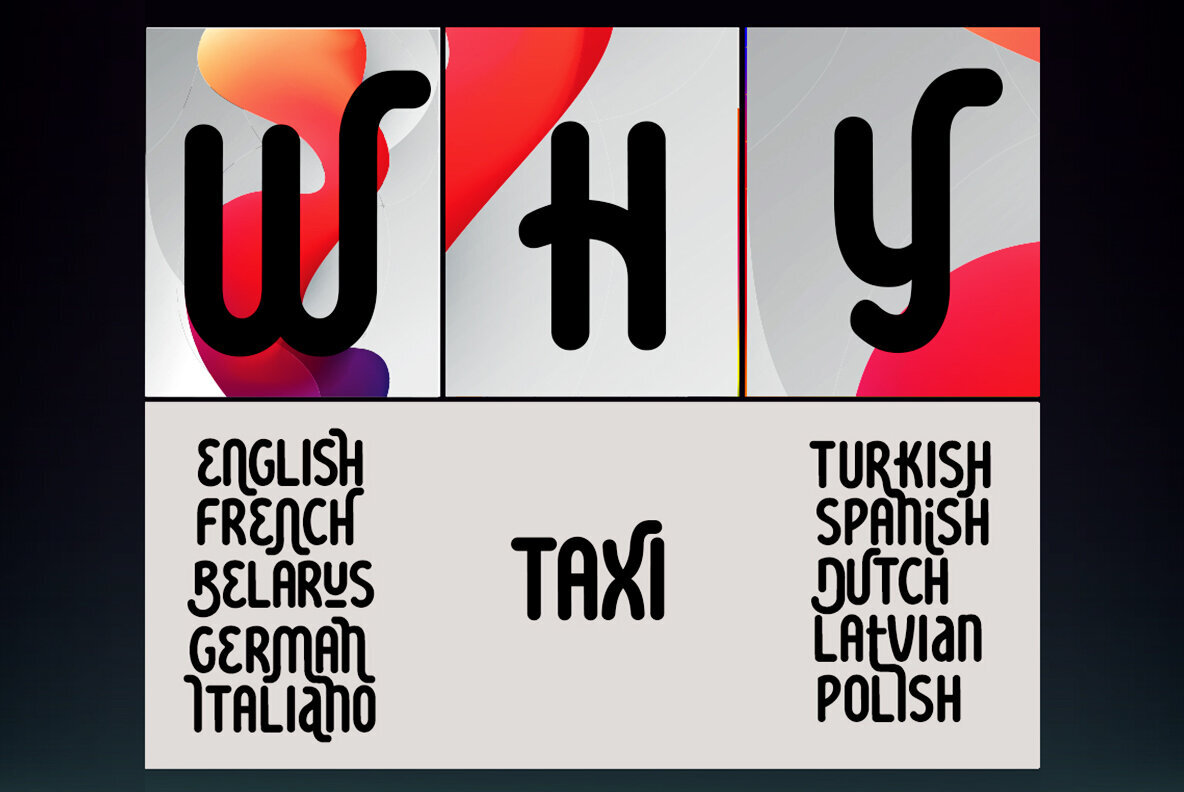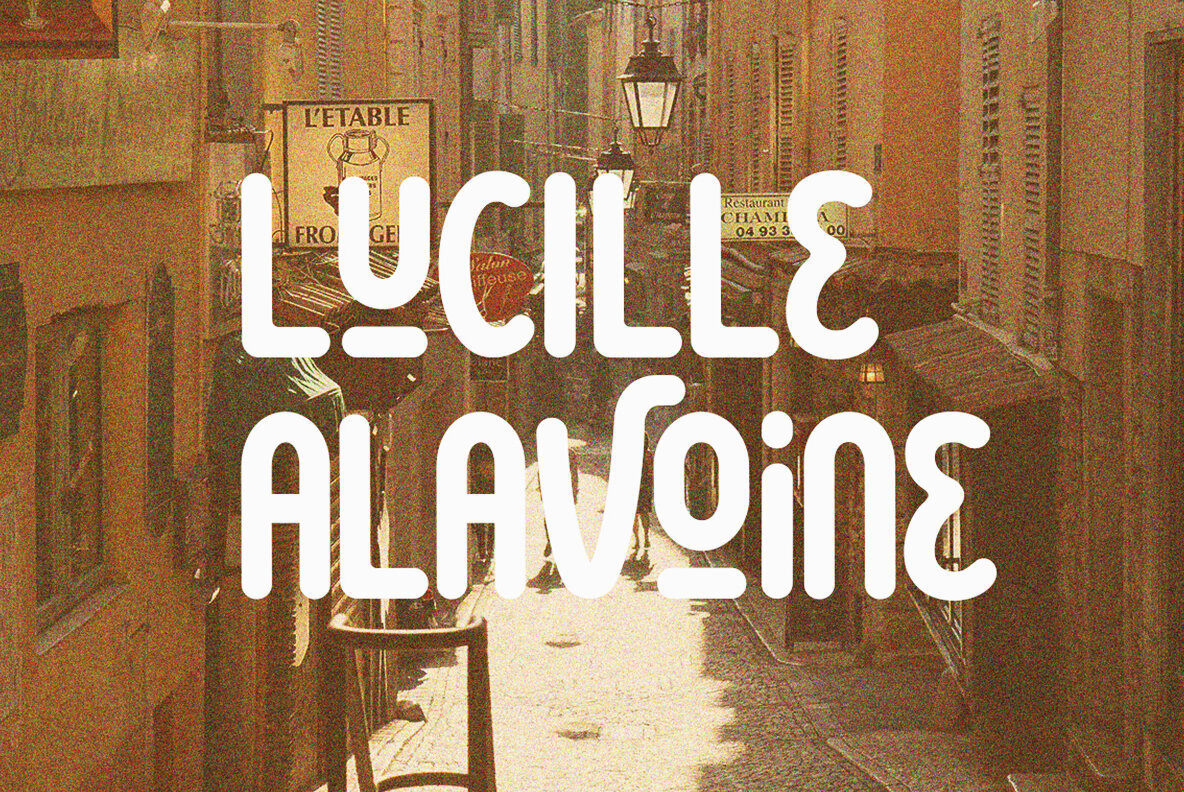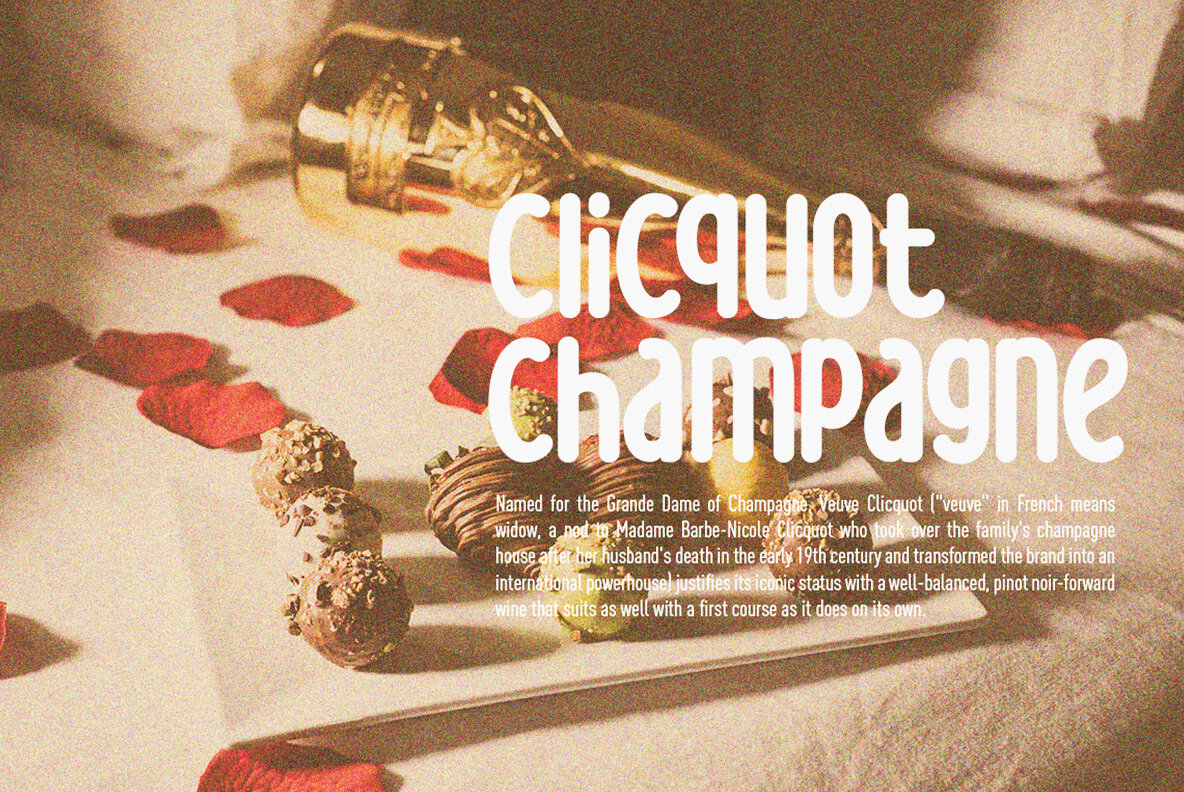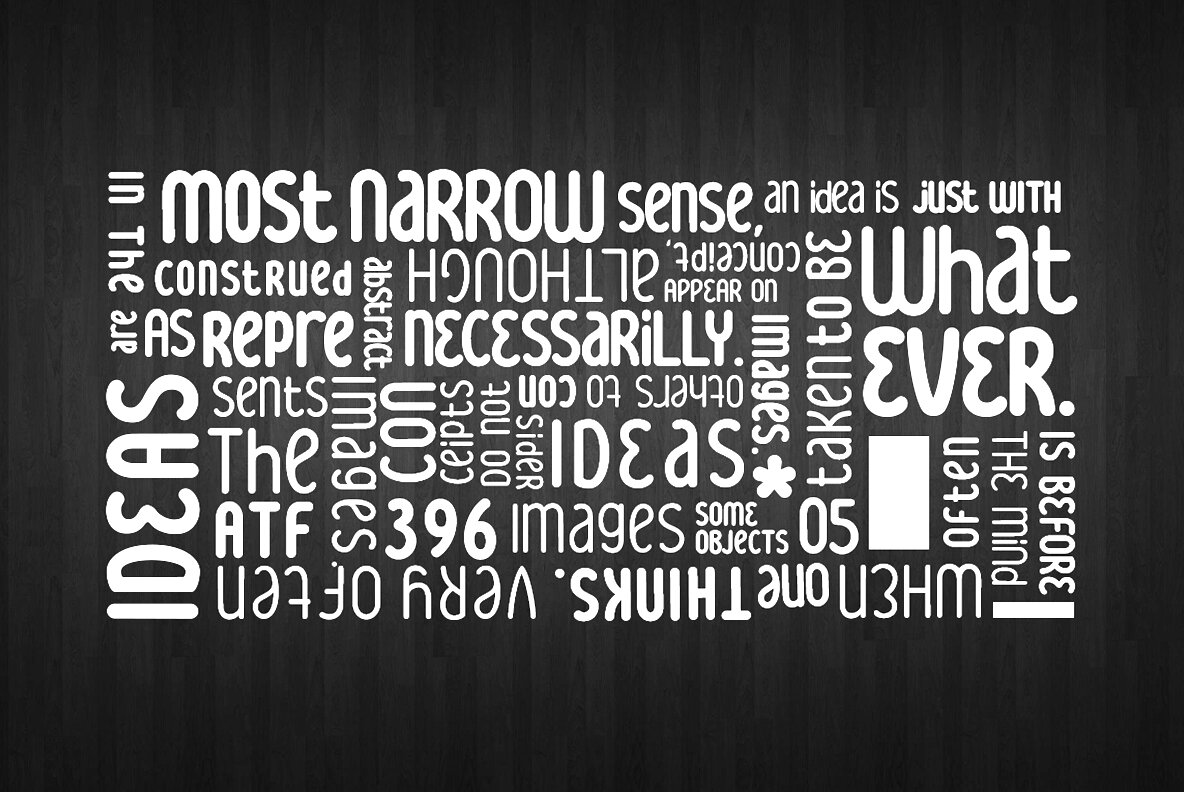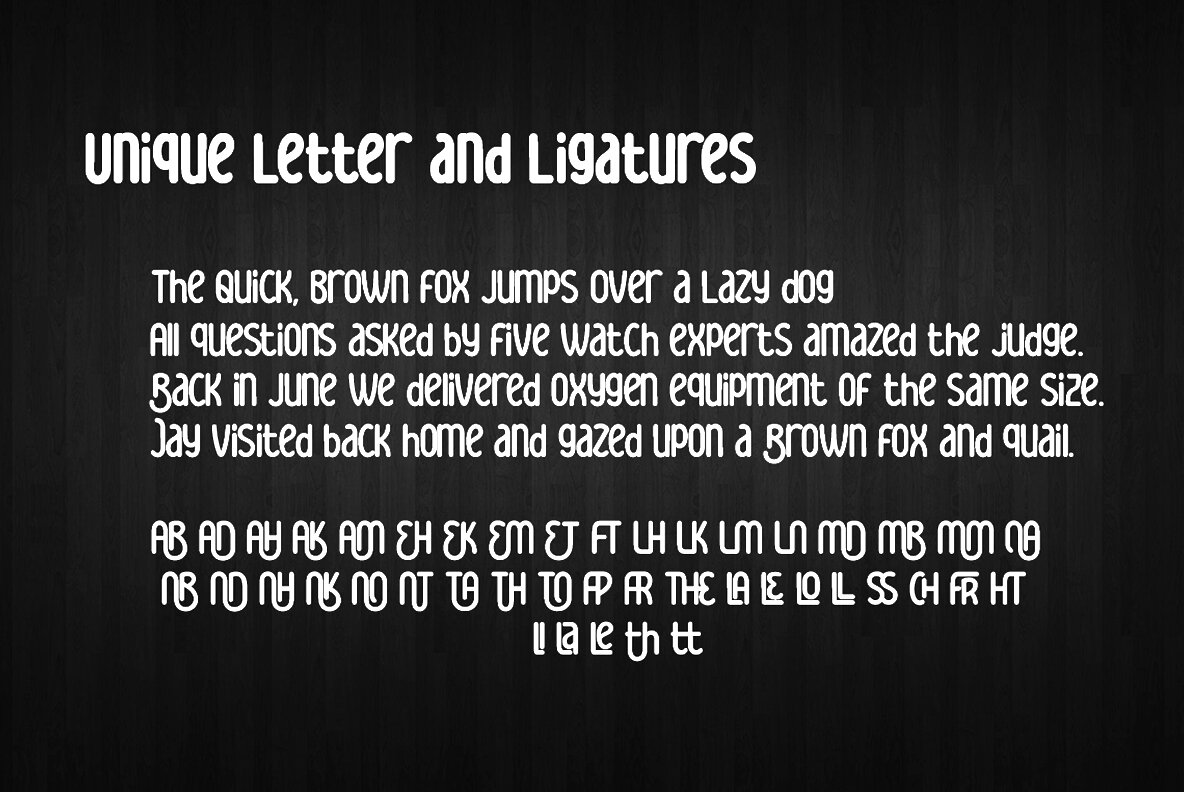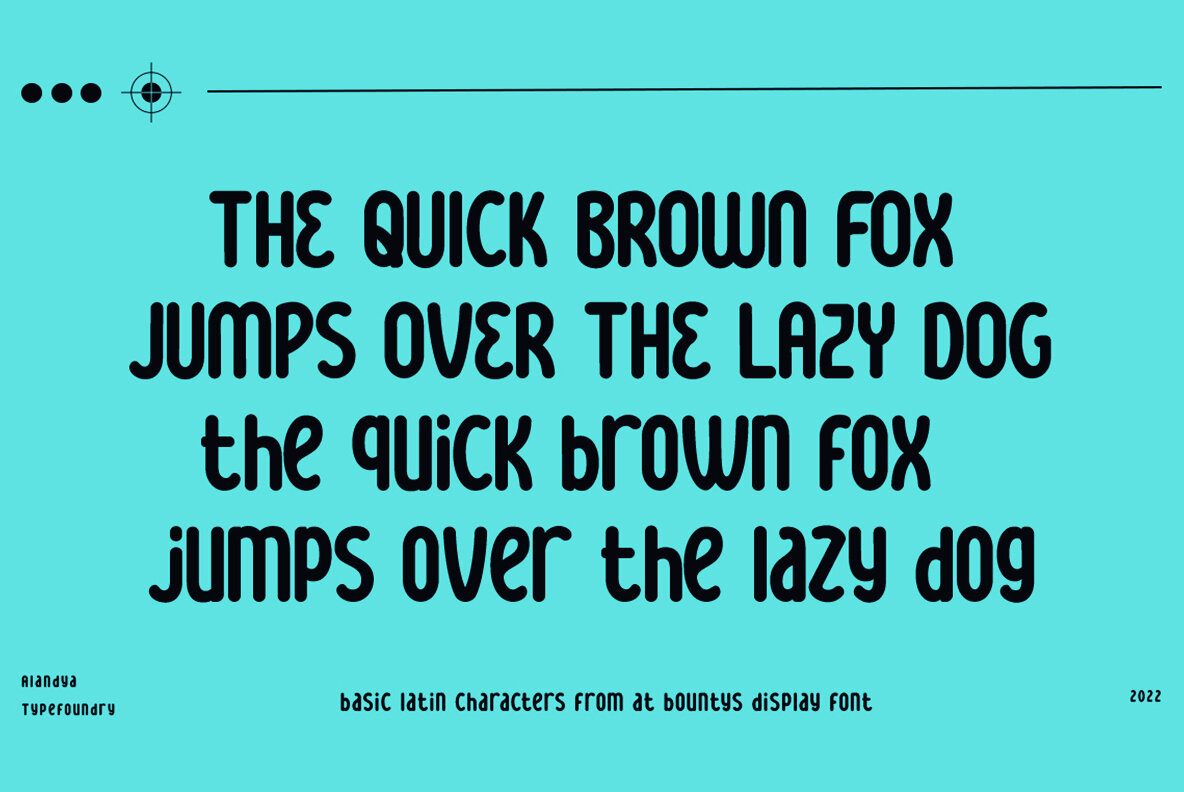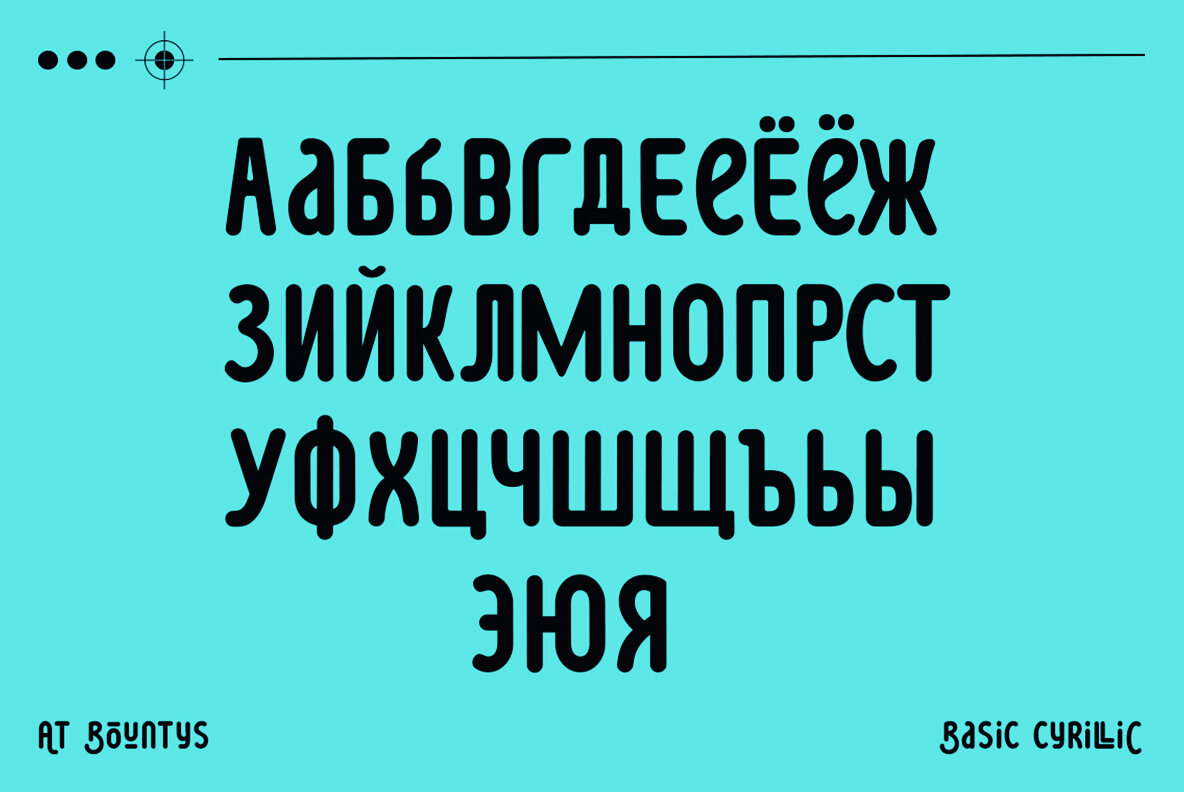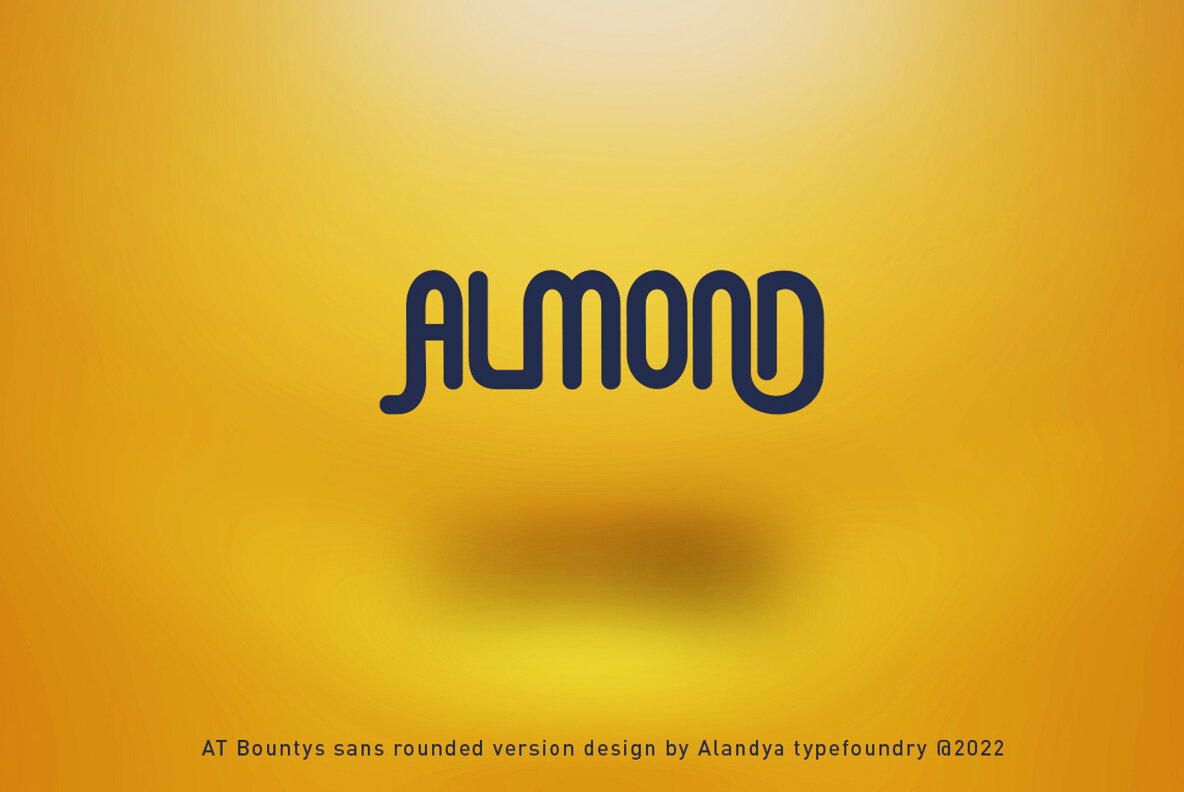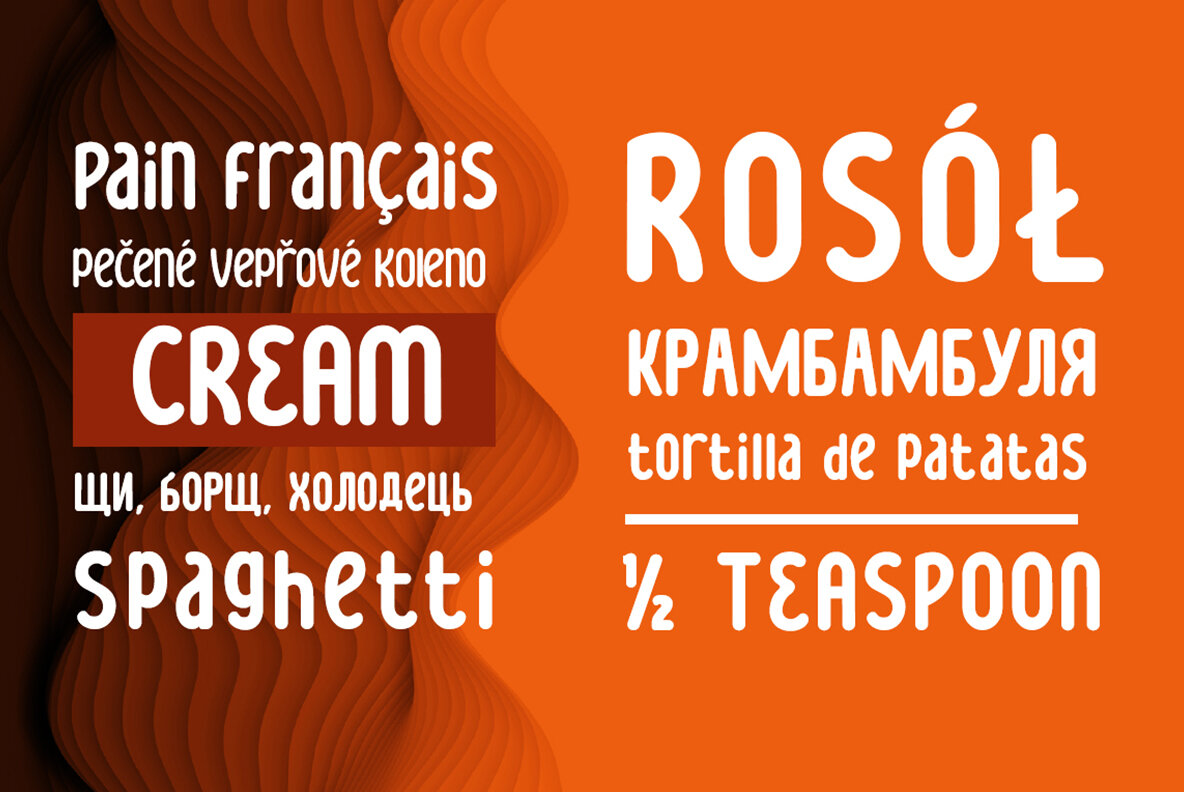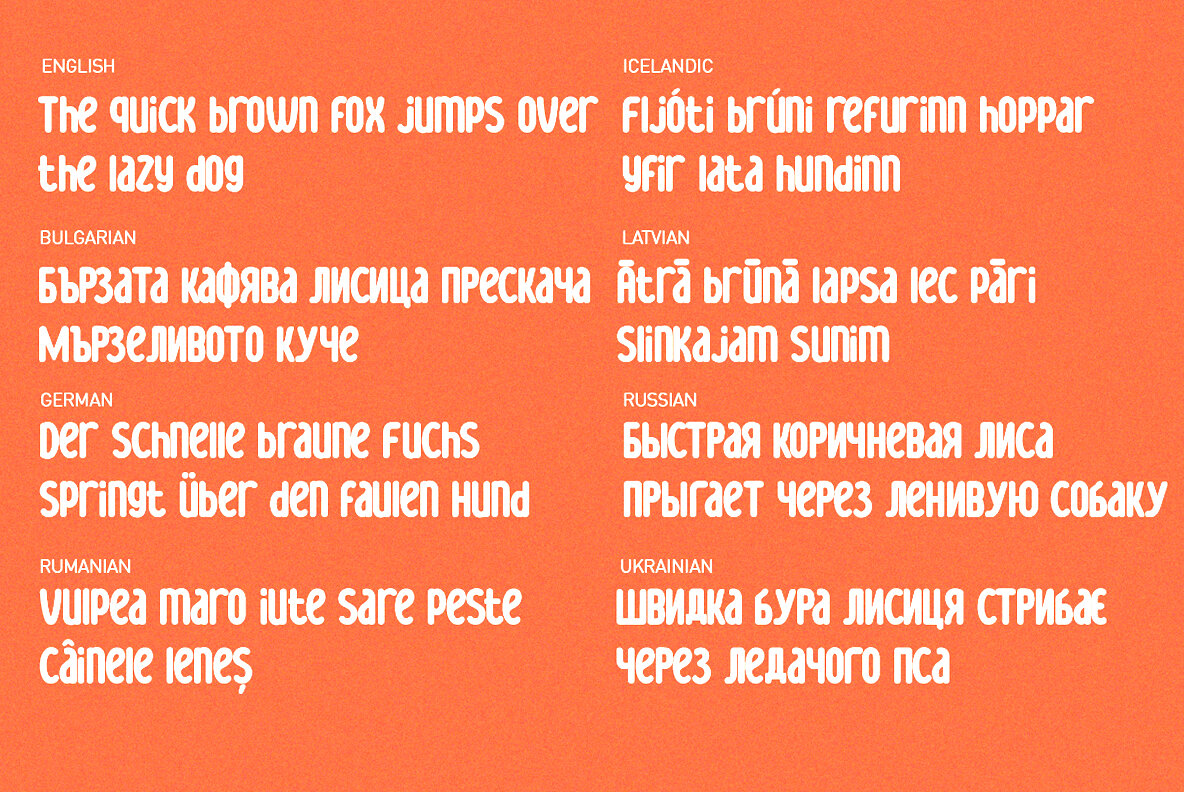
Bountys Rounded Font
AT Bountys Rounded is stylish and beautiful sans serif font with variable file. It will look perfect in photography designs, watermarks, social media posts, advertisements, logos, branding, and various other projects. The main strokes contain small breaks simulating modulated variations on the letterforms, these details are more present on large body sizes. All font versions contain Latin and Cyrillic encoding characters and also ligatures, case-sensitive forms, fractions, oldstyle and finally tabular figures.